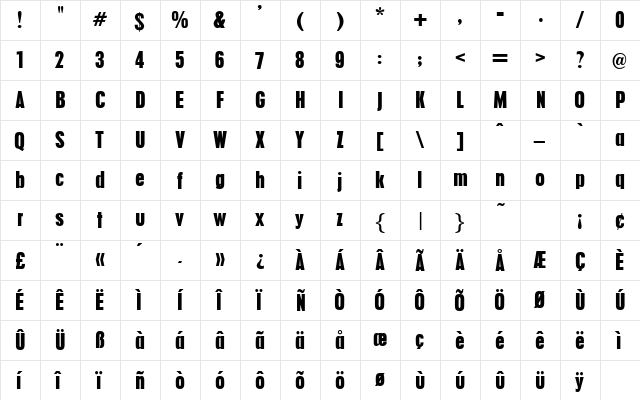
Pillsdon Regular Font Preview
Pillsdon Regular
Design Context for Pillsdon Typeface
Pillsdon offers clean, dependable letterforms without strong stylistic allegiance, making it a practical choice for designers who need flexibility.